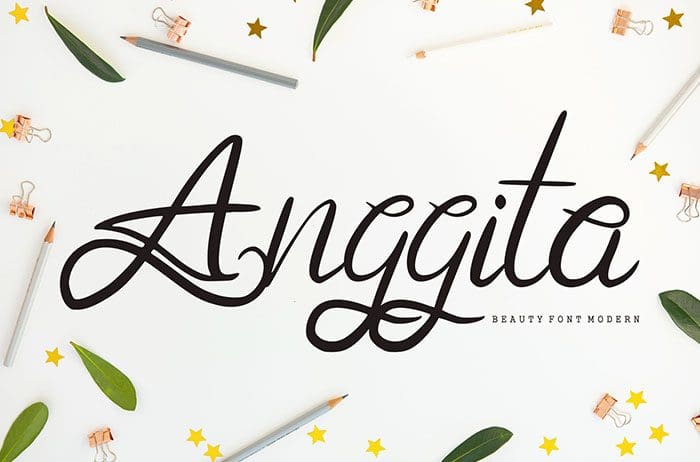
Anggita Calligraphy Font
Anggita Calligraphy Font. This font Perfect for weddings, quotes, embroidery, social media headers, product packaging, and a lot more! Thanks to Vunira Studio for sharing this font! Take a look at this portfolio for more of his stunning fonts.